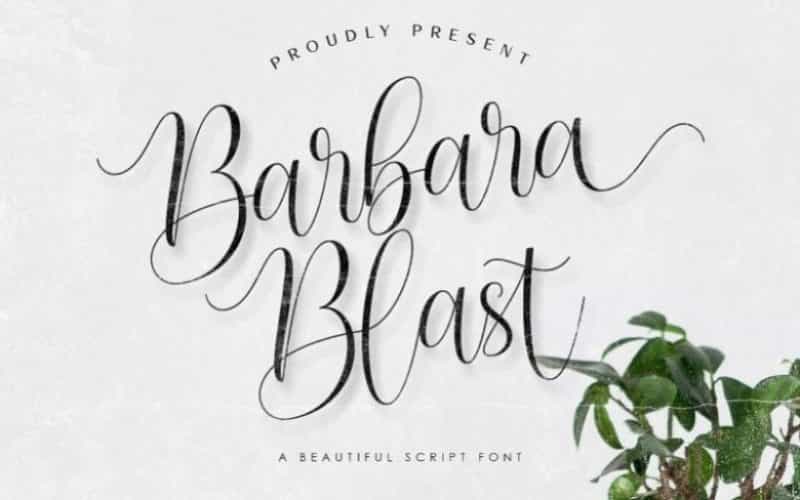
Barbara Blast is another font, and more specifically, a handwritten signature script font. Barbara Blast has a good readability and contains lots of glyphs which allows the user to add a different look to his/her designs each time the font is used.